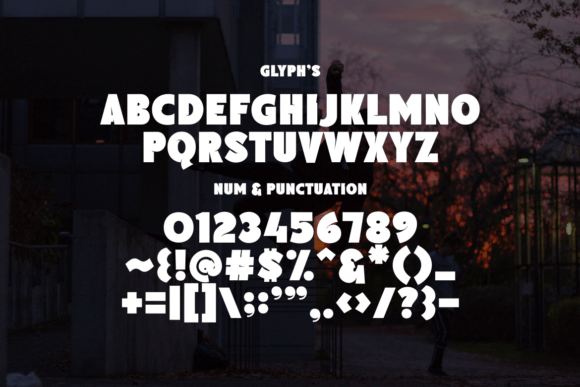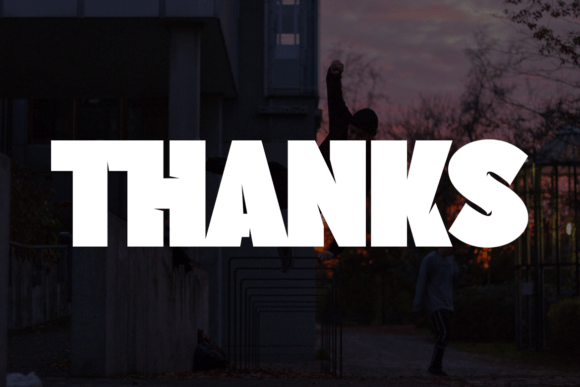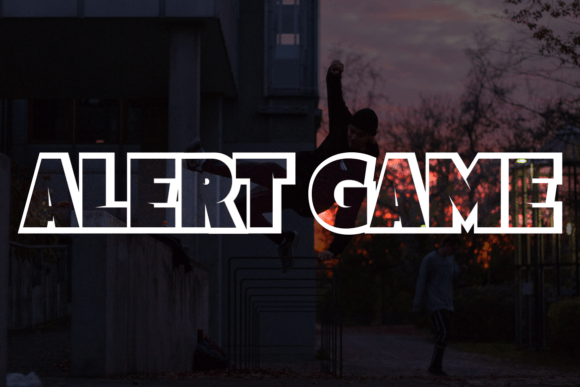
Unleash the Power of Beachpool Font: A Designer’s Best Friend
I’ll never forget the time I was working on a project for a men’s fitness brand. My client wanted a bold, rugged font that would capture the energy and determination of their athletes. I scoured the internet, trying out font after font, but nothing seemed quite right. That was until I stumbled upon Beachpool Font. 💪
This robust and virile typeface has been a game-changer for my design projects, and I’m excited to share its awesomeness with you. In this article, we’ll dive into the world of Beachpool Font, exploring its features, uses, and some practical tips on how to make the most of it.
What I Love About Beachpool Font
So, what makes Beachpool Font so special? Here are a few things that I absolutely love: 🤩
- ✨ Robust and dynamic character: Beachpool Font exudes rugged masculinity, making it perfect for athletic contexts like gym emblems, men’s product branding, and extreme sports graphics.
- 💥 Bold and eye-catching: This font is designed to make a statement, adding a bold flourish to your designs and capturing the energy of parkour labels and other high-energy applications.
While Beachpool Font is an amazing typeface, there are a few quirks to keep in mind: 🤔
- ⚠️ Limited use in formal contexts: Beachpool Font is bold and rugged, which means it might not be the best choice for formal or elegant designs.
- ⚠️ Glyph limitations: While Beachpool Font comes with a range of glyphs and OpenType features, it might not have every special character or symbol you need.
Practical Guide: Using Beachpool Font in Your Designs
Now that we’ve covered the basics, let’s dive into some practical tips on how to use Beachpool Font in your designs.
- Take advantage of OpenType features like glyphs and stylistic alternates to add some extra personality to your text.
The Story Behind Beachpool Font
Beachpool Font was designed with one goal in mind: to create a bold, rugged typeface that would capture the energy and determination of athletes and fitness enthusiasts. The designer, inspired by the world of extreme sports and parkour, set out to create a font that would embody the spirit of grit and perseverance.
- Q: Is Beachpool Font suitable for body text?
- A: While Beachpool Font is bold and eye-catching, it’s best used for headlines and titles. For body text, you might want to choose a more readable font.